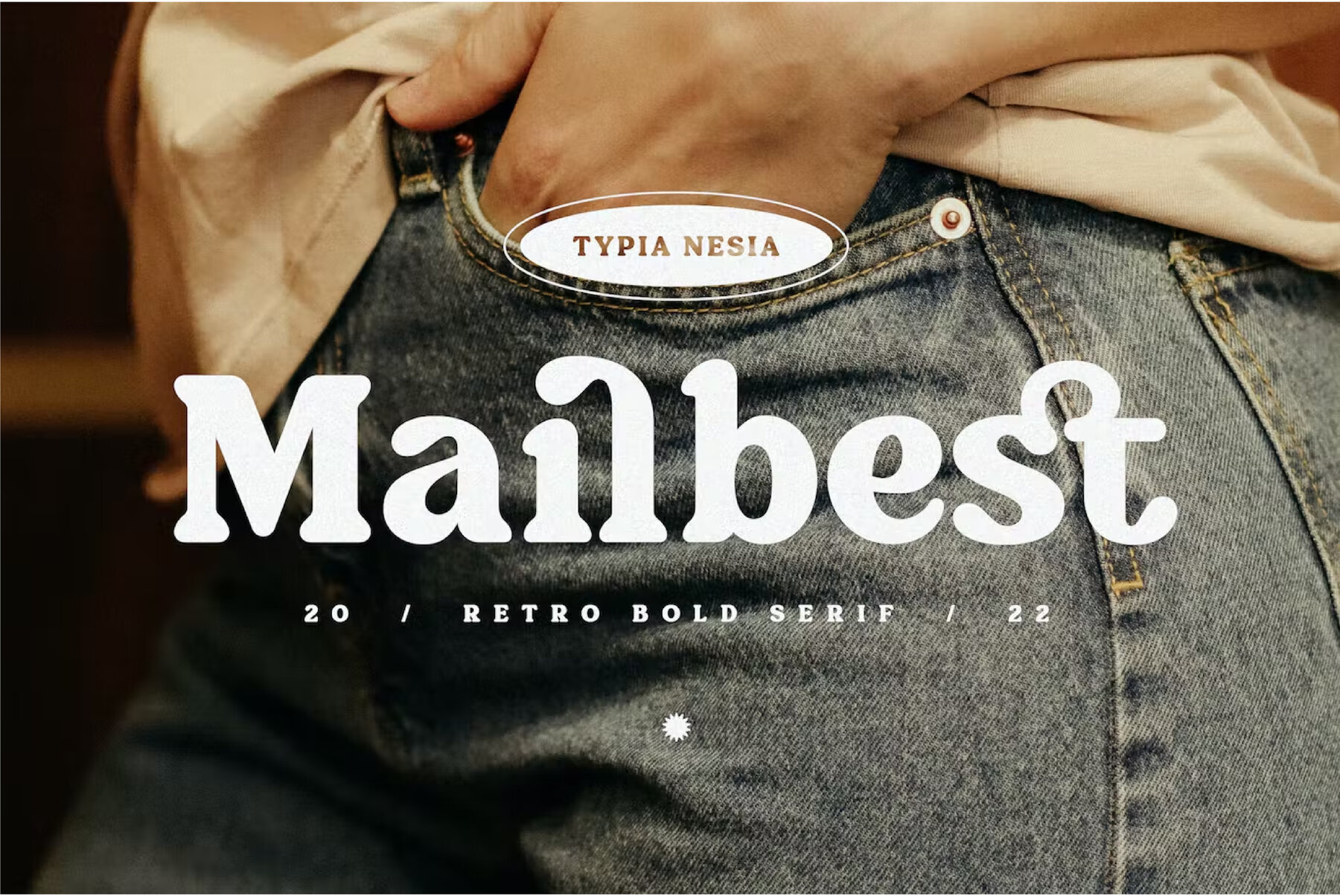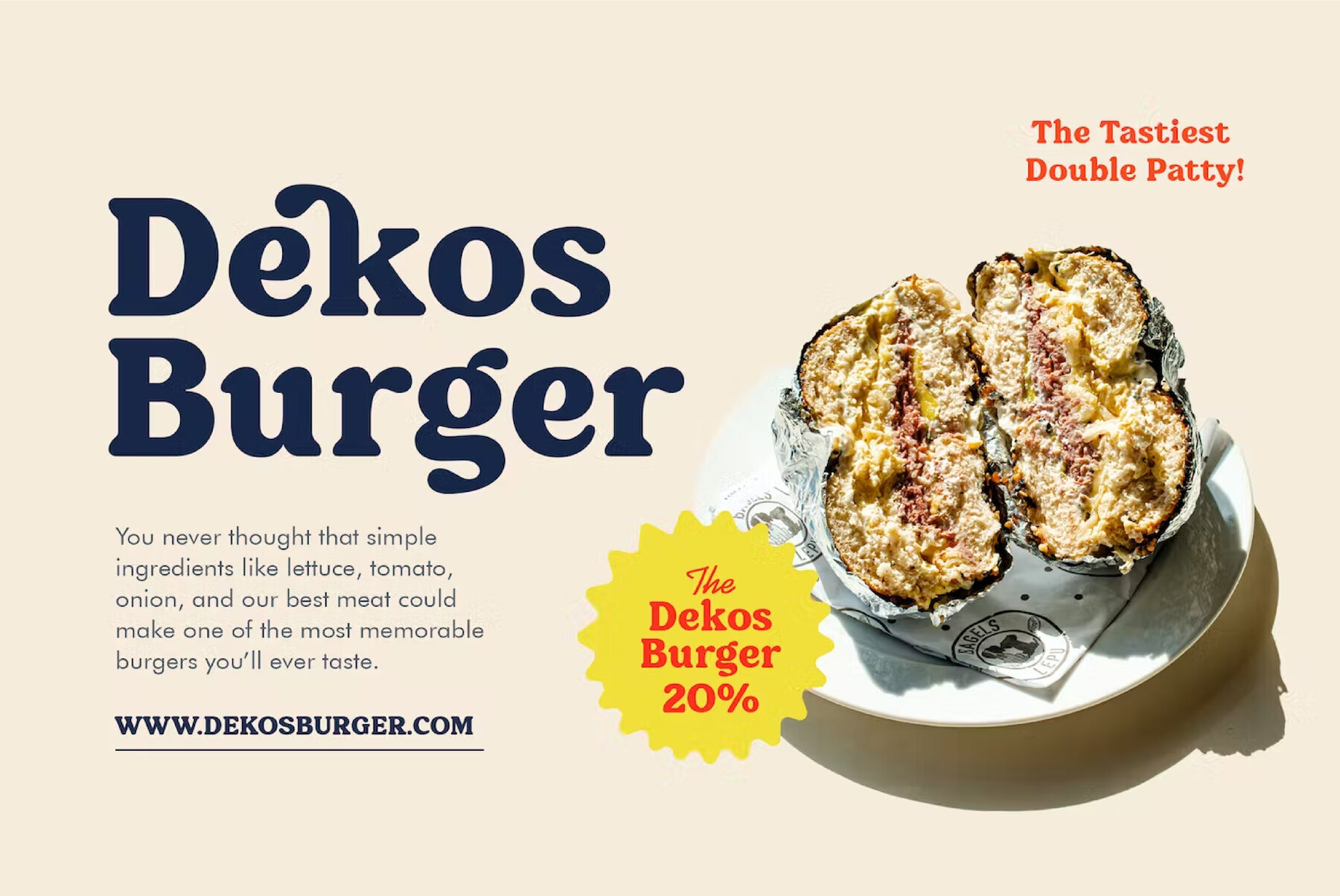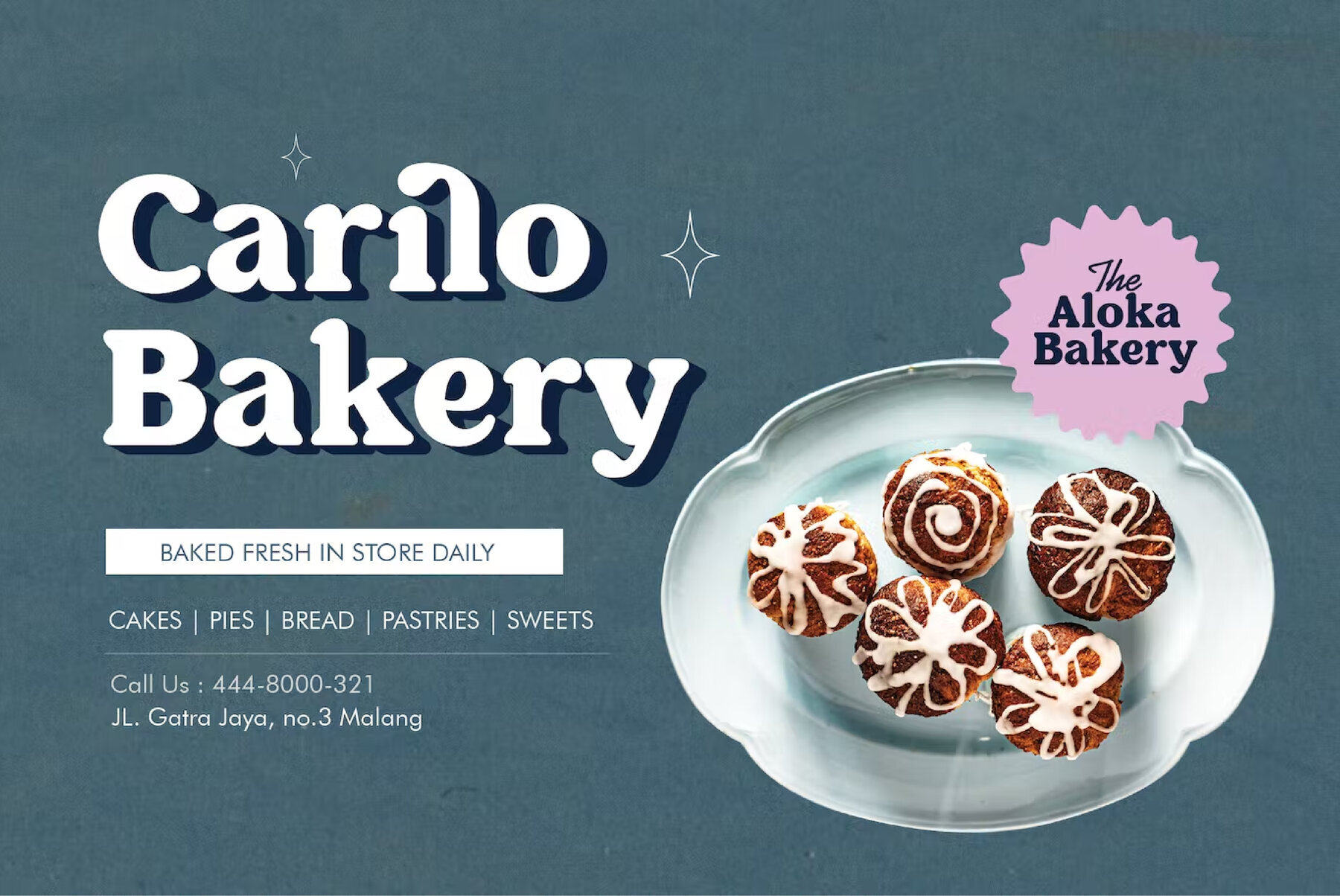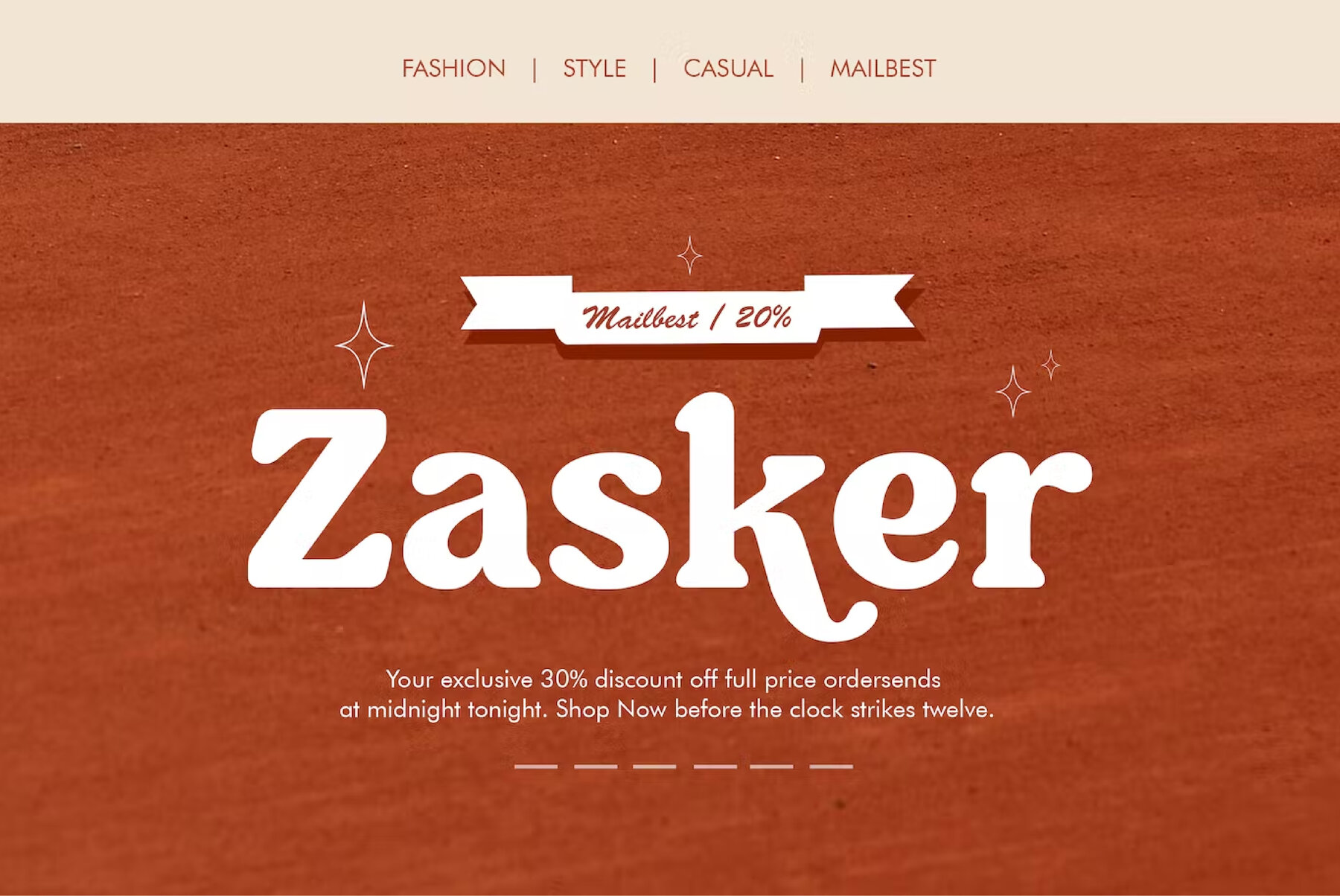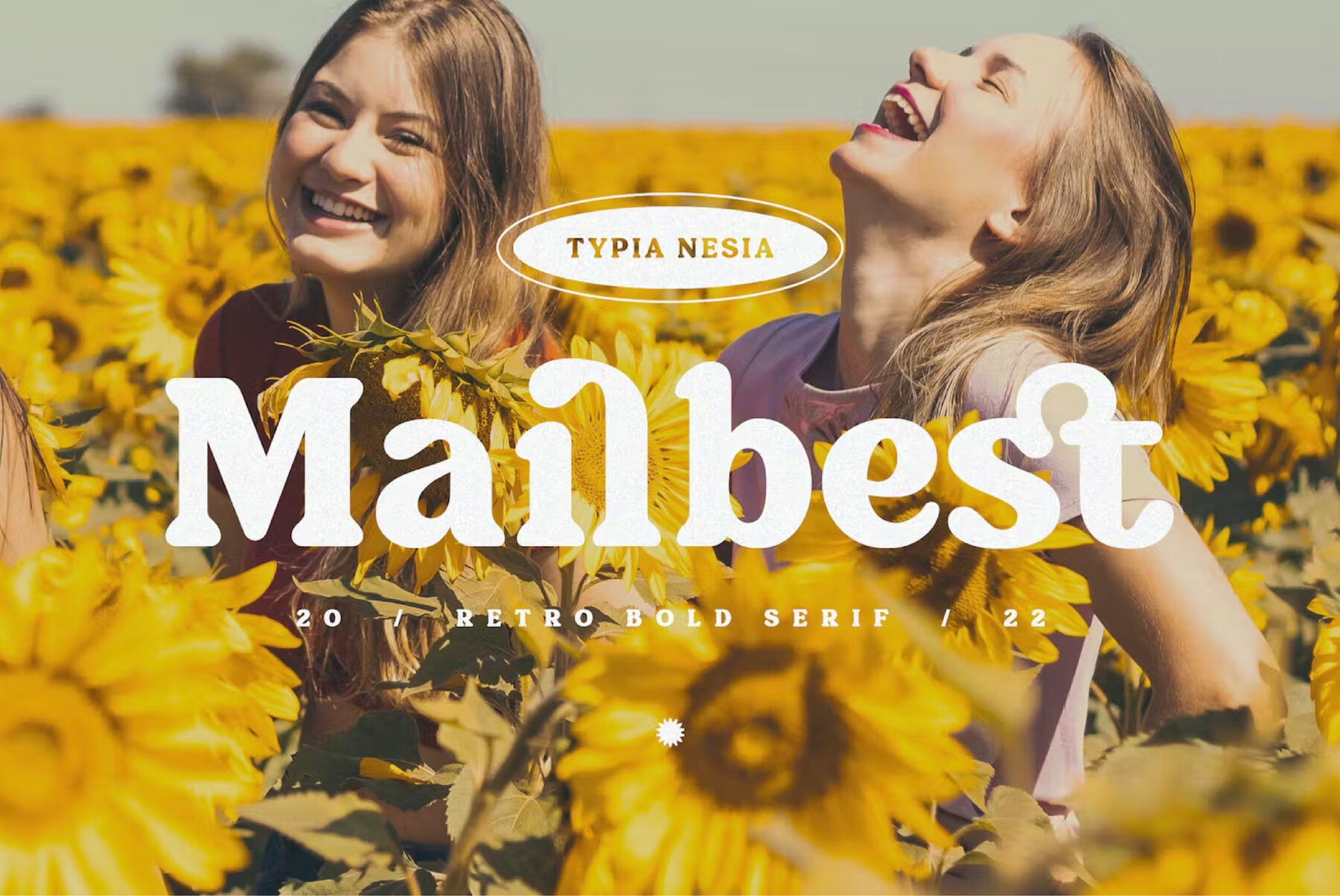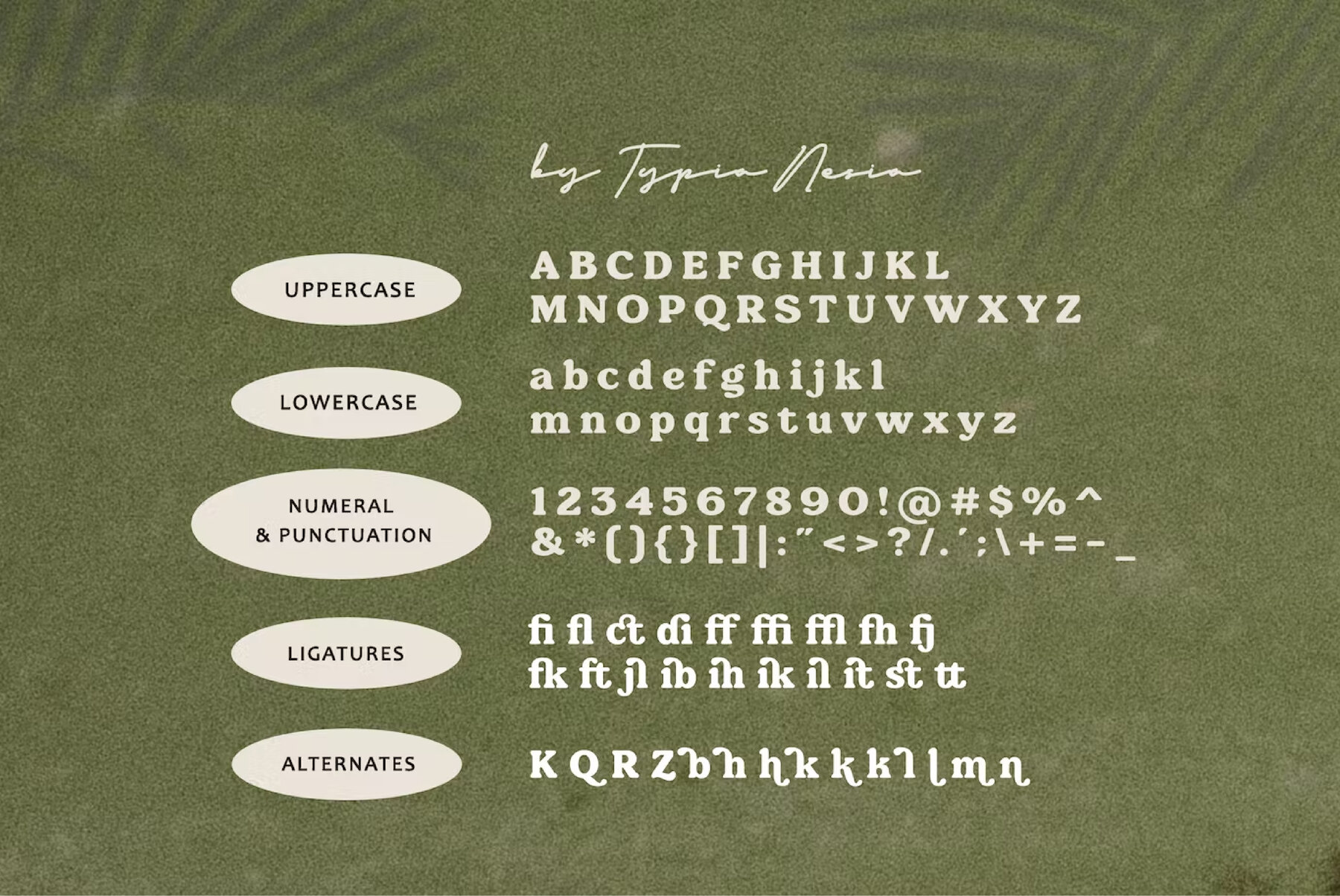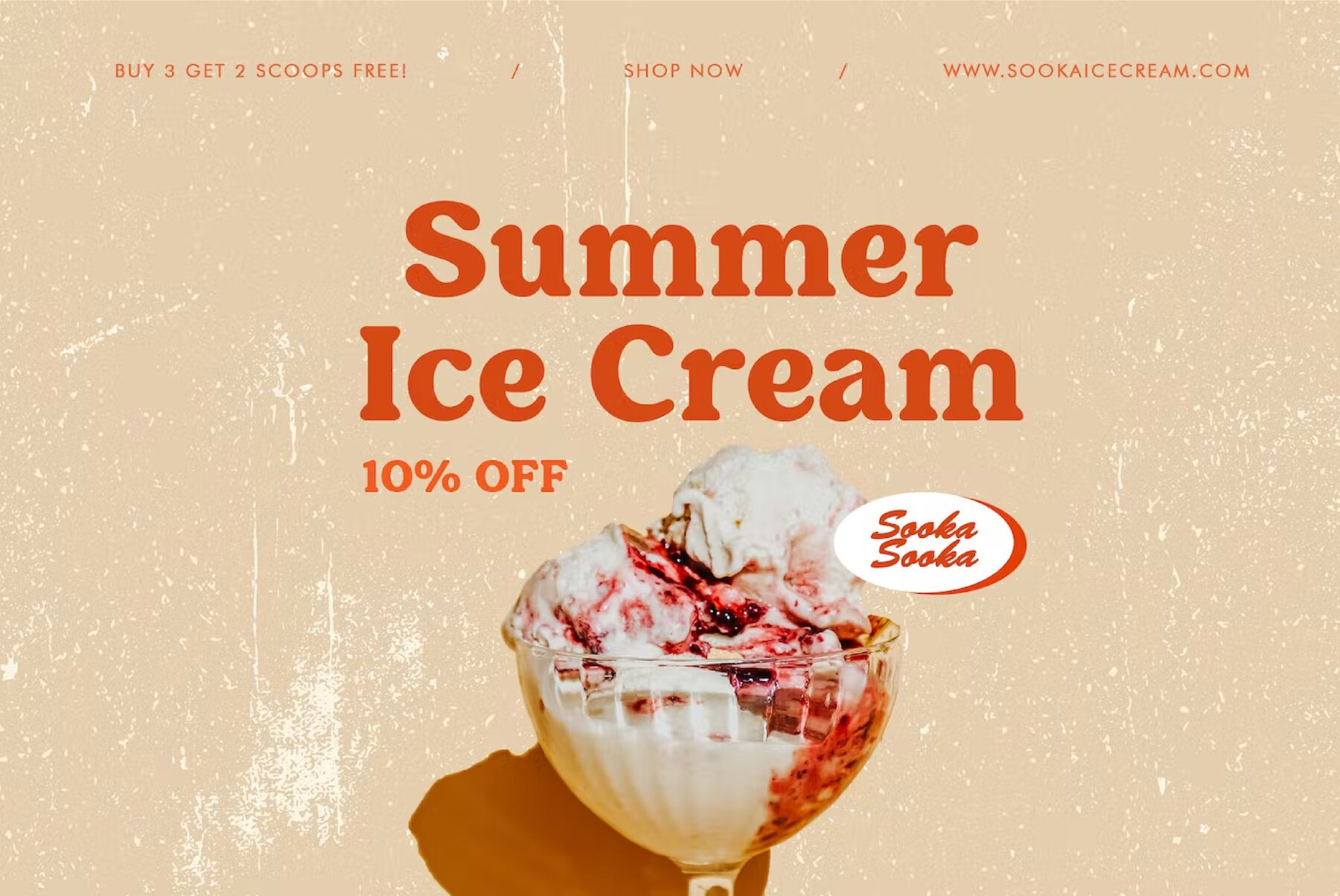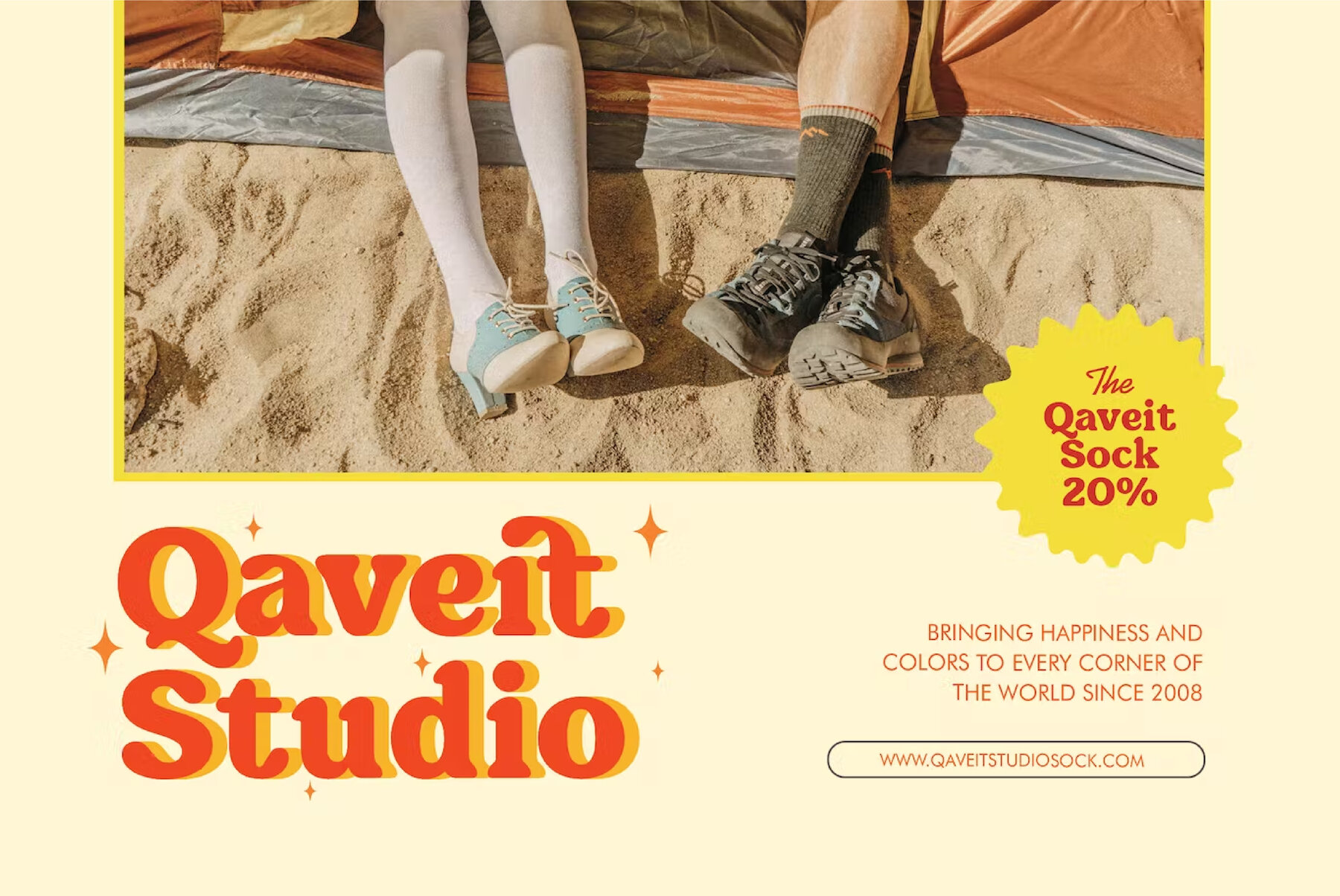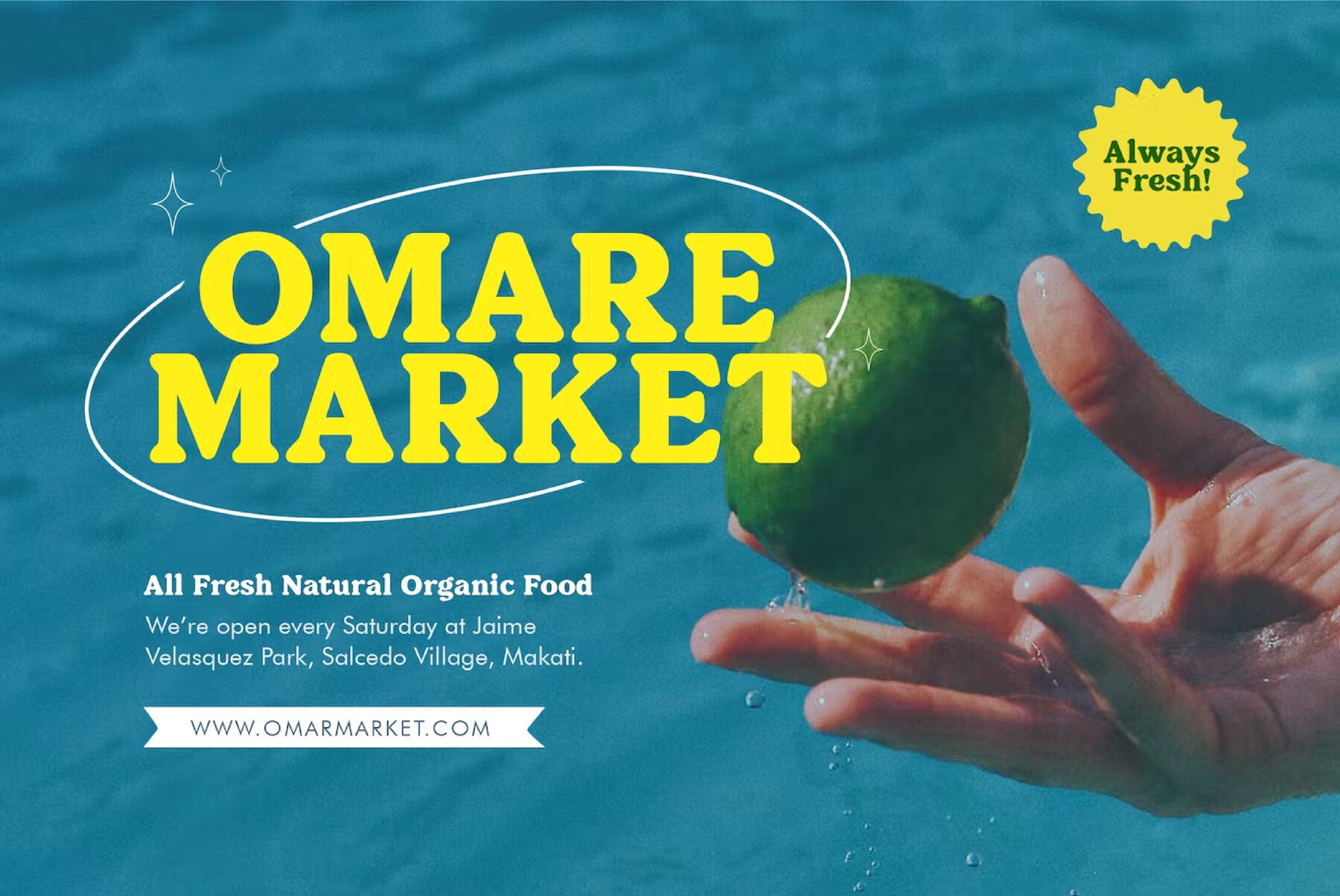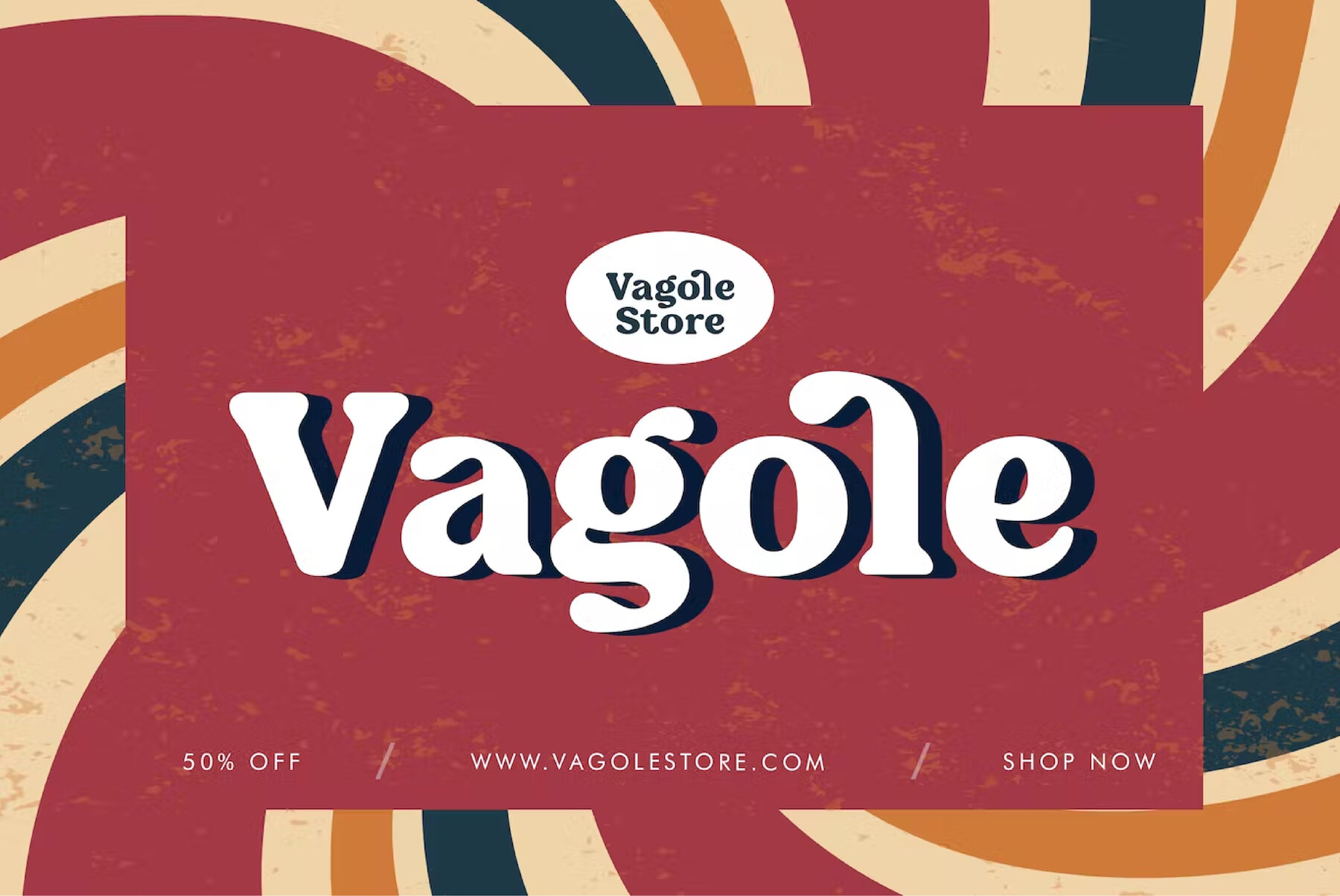
Mailbest Font
Mailbest Regular
Mailbest comes with some alternates and ligatures, so you can combine it to make a perfect typography design. Suitable for any design needs : logo, branding, modern advertising design, vintage garage design, adventure / mountain hiking brand, hardcore music, animation or movie, logos, retro summer poster quote, book / novel cover Title, editorial design, website / blog, card, and any typography needs.